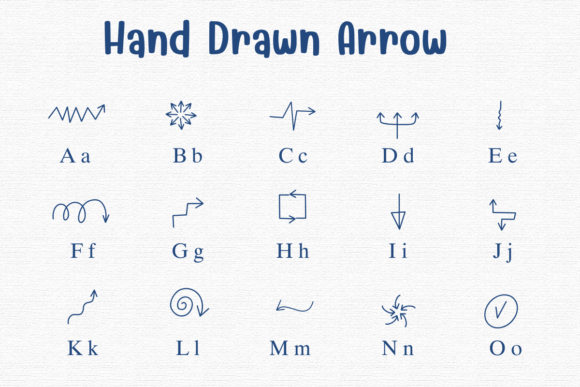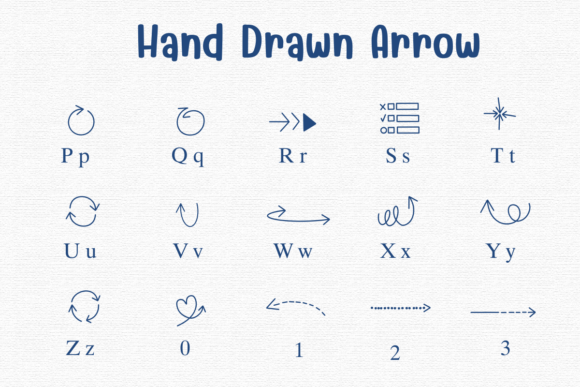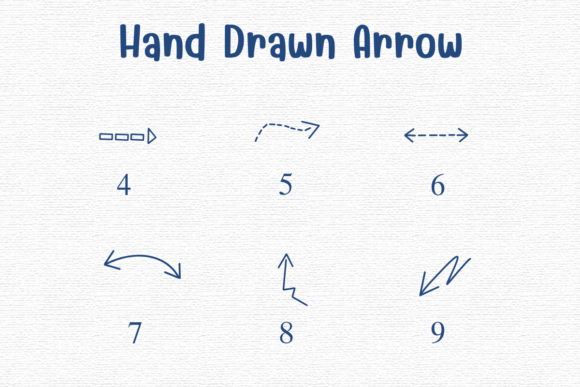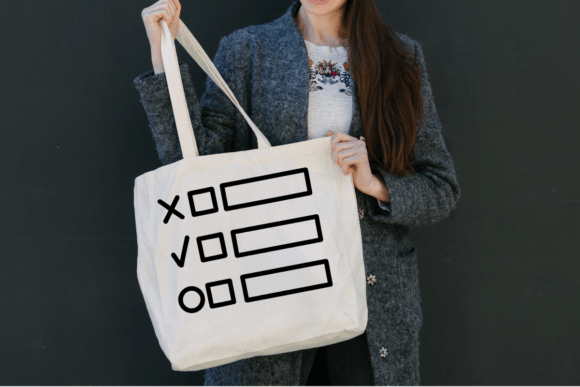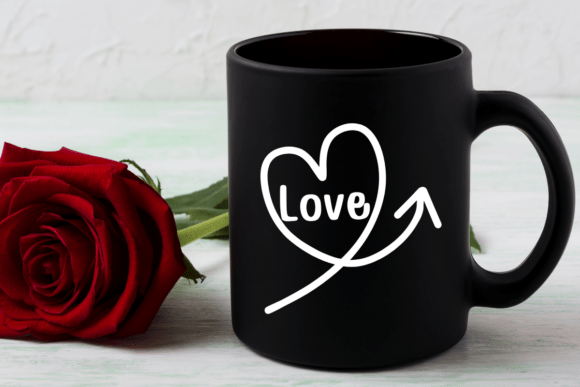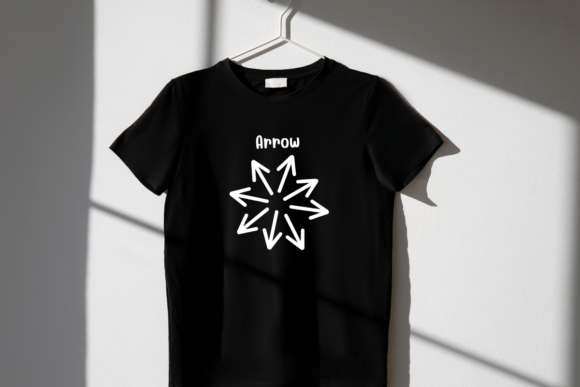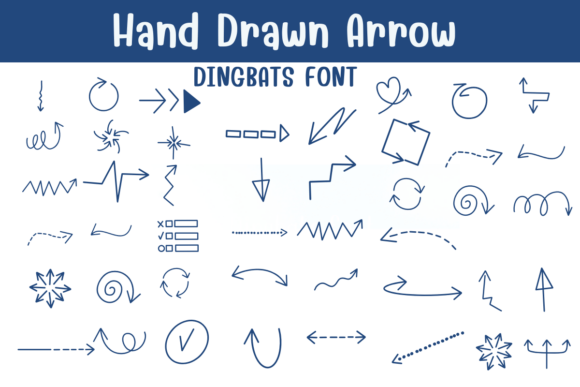
Elevate Your Designs with Hand Drawn Arrow Font
Are you tired of using the same old boring arrows in your designs? Look no further! The Hand Drawn Arrow Font is here to revolutionize the way you add a touch of personality to your visual communication. This versatile dingbat font features a wide variety of sketched arrow styles that will make your presentations, planners, infographics, educational materials, and creative projects stand out from the crowd.
What is Hand Drawn Arrow Font?
Hand Drawn Arrow Font is a unique dingbat font that offers a vast collection of hand-drawn arrow styles. From elegant swirls and curves to playful zigzags and dashed lines, this font has something for everyone. With its casual and personal touch, it’s perfect for designers, crafters, and anyone looking to add a bit of whimsy to their designs.
Key Features of Hand Drawn Arrow Font
• Variety of Arrow Styles: With Hand Drawn Arrow Font, you’ll get access to a wide range of arrow styles, including swirls, curves, zigzags, dashed lines, and more.
• Easy to Use: Simply type a letter, and you’ll get a unique arrow icon instantly! No need to spend hours searching for the perfect arrow or wasting time on tedious design work.
• Perfect for Various Projects: Whether you’re working on presentations, planners, infographics, educational materials, or creative projects, Hand Drawn Arrow Font is the perfect addition to your design toolkit.
• Casual and Personal Touch: This font adds a touch of personality to your designs, making them more engaging and fun.
Hand Drawn Arrow Font is a game-changer for designers and crafters who want to take their designs to the next level. Here are just a few benefits you can expect:
• Save Time: With Hand Drawn Arrow Font, you can quickly and easily add arrows to your designs without spending hours searching for the perfect one or creating them from scratch.
• Increase Creativity: The variety of arrow styles available with this font will inspire you to try new things and experiment with different designs.
• Stand Out from the Crowd: Add a personal touch to your designs and make them more engaging with Hand Drawn Arrow Font.
In conclusion, Hand Drawn Arrow Font is a versatile and fun dingbat font that’s perfect for designers, crafters, and anyone looking to add a personal touch to their visual communication. With its wide variety of hand-drawn arrow styles, ease of use, and benefits for designers and crafters, this font is a must-have for anyone looking to elevate their designs. So why wait? Download Hand Drawn Arrow Font today and start creating stunning designs that stand out from the crowd!